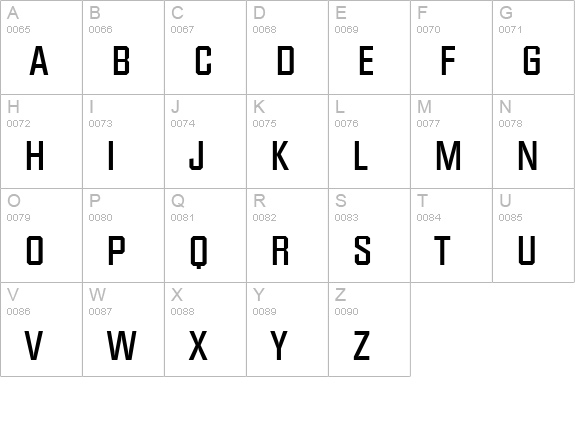
DiamanteSerial-Medium-Regular is a balanced, medium-weight variant in the DiamanteSerial typeface family \xE2\x80\x94 well suited to sub-headlines, navigation, and balanced editorial work.
DiamanteSerial-Medium-Regular is a beautifully crafted typeface that exudes elegance and sophistication. Its clean lines and modern design make it perfect for a wide range of projects, from branding to editorial design. The medium weight strikes a perfect balance between readability and style, making it ideal for both display and body text. What sets DiamanteSerial-Medium-Regular apart is that it is available for free download at FontsMarket.com. This means that you can easily access this high-quality font without any cost, making it a valuable addition to your design toolkit. Whether you are working on a personal project or a professional assignment, DiamanteSerial-Medium-Regular is sure to elevate your designs and bring a touch of class to your work.